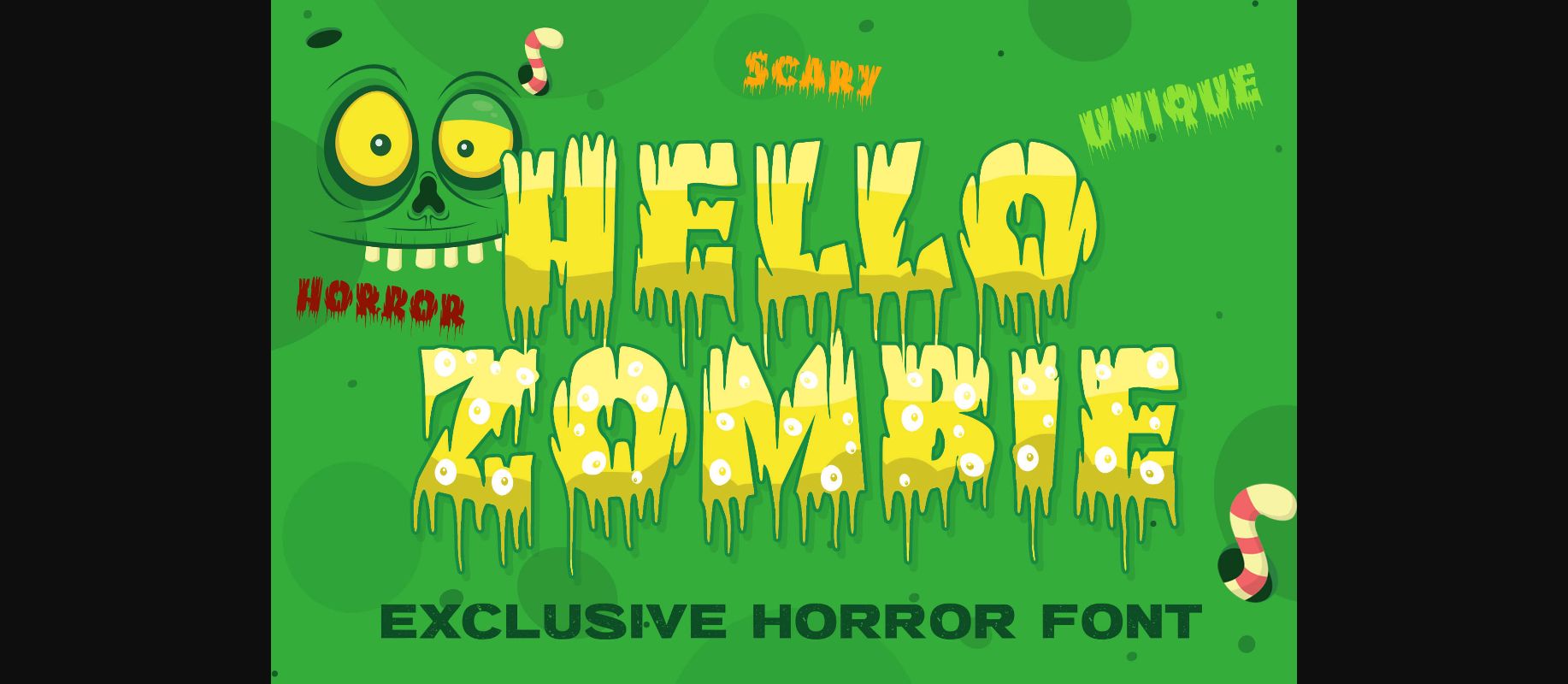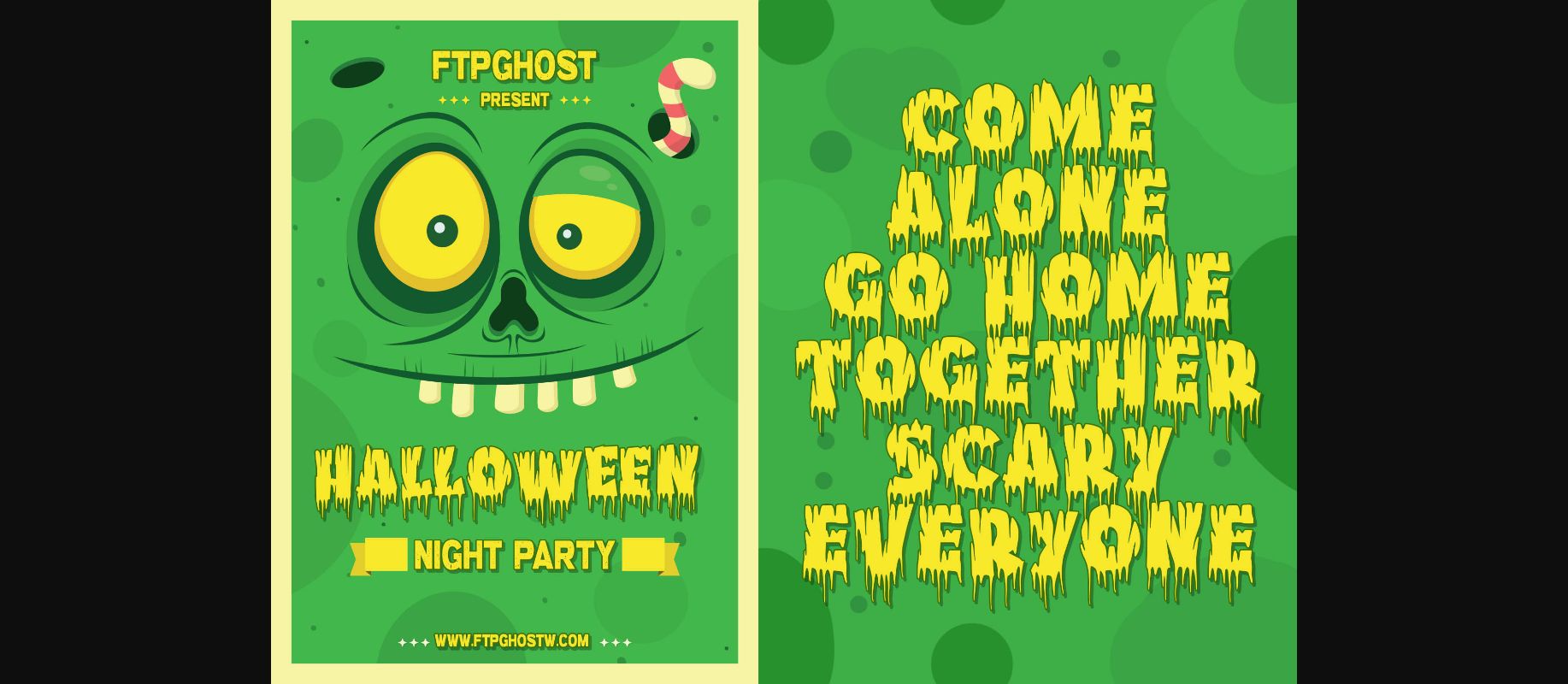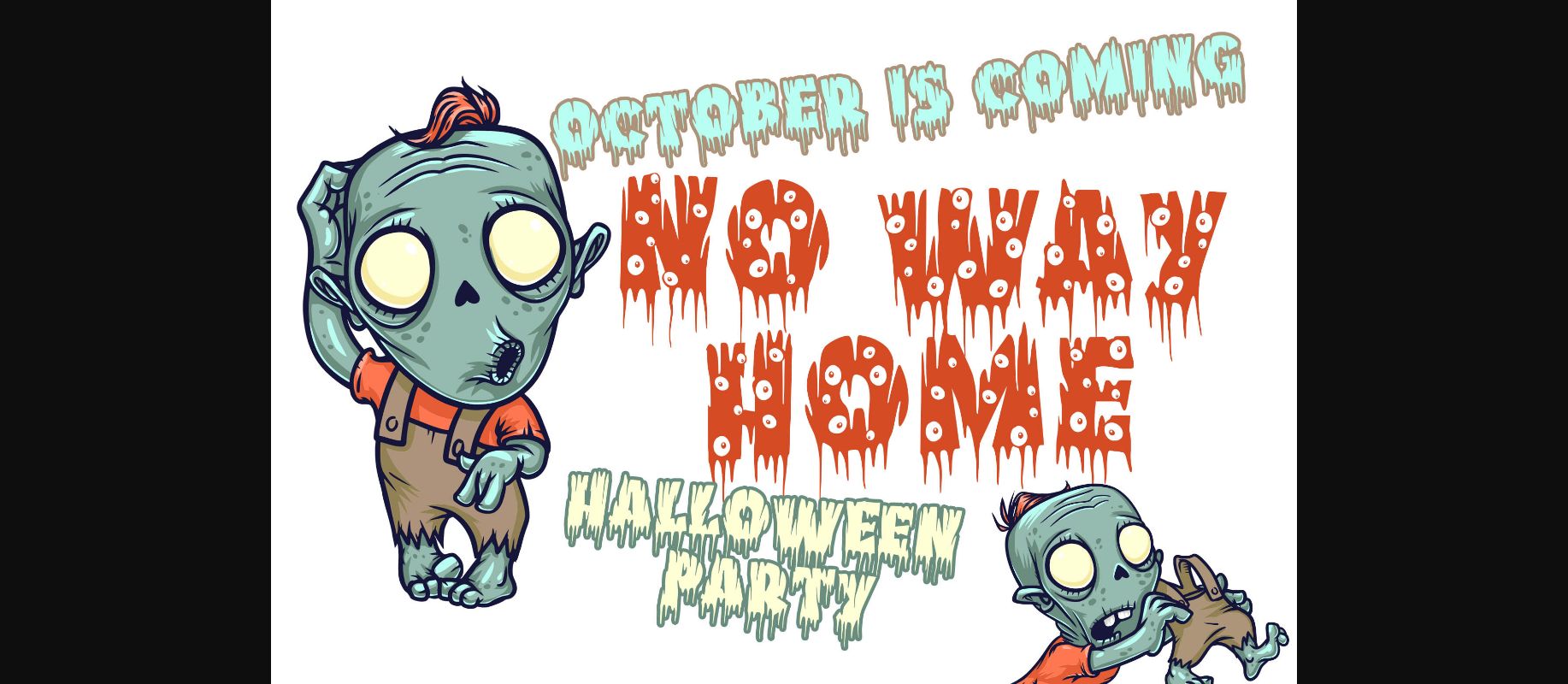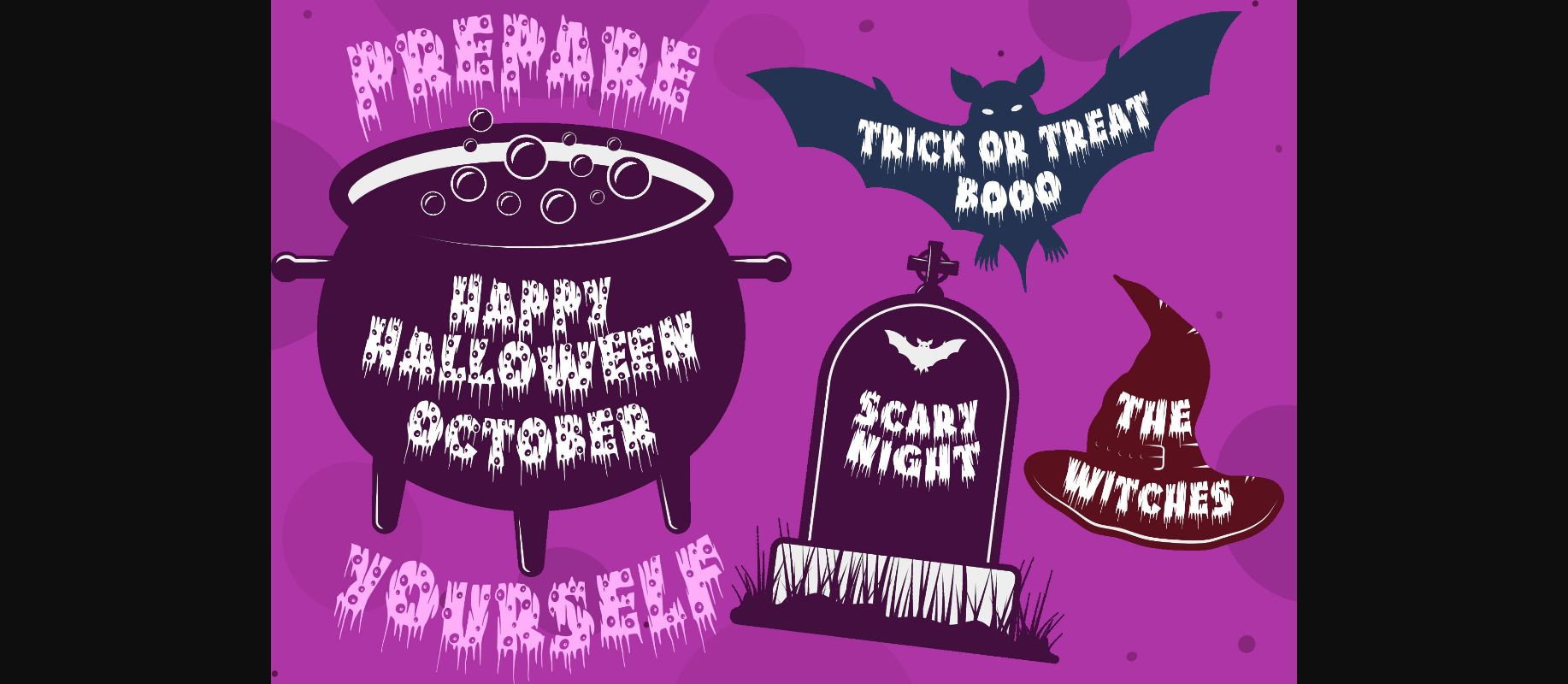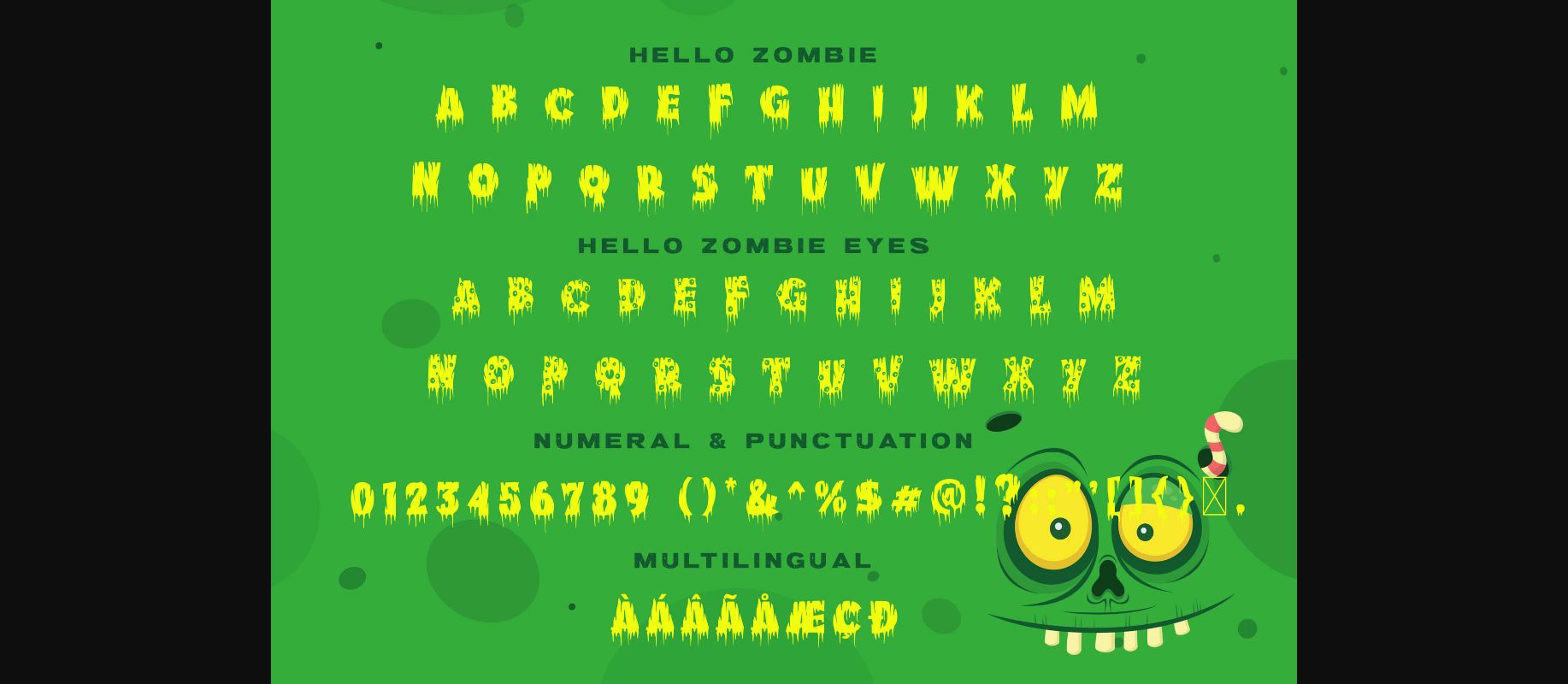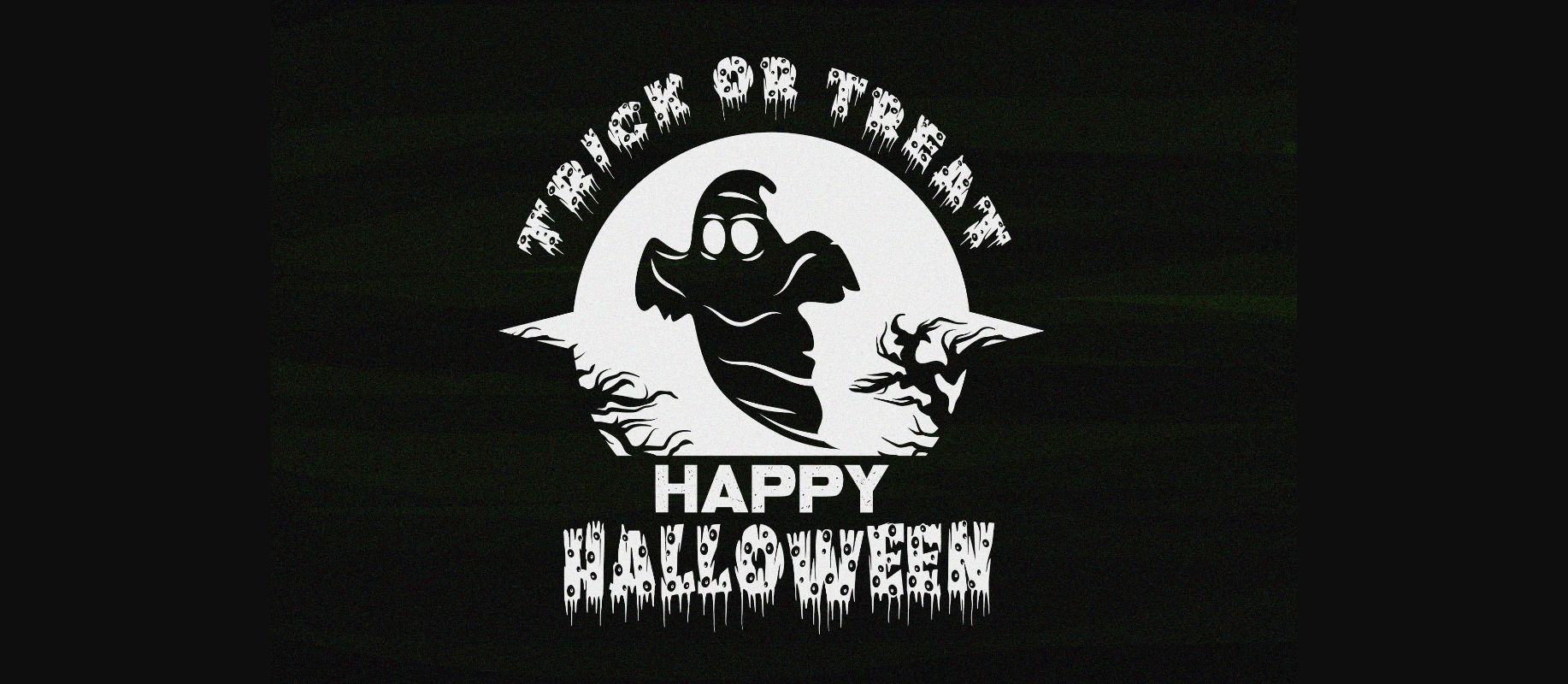
HomeDecorative FontsHello Zombie Font Decorative Fonts Hello Zombie Font FacebookXPinterestWhatsApp 1 of 8 ... Hello Zombie Font Poster 2... Hello Zombie Font Poster 3... Hello Zombie Font Poster 4... Hello Zombie Font Poster 5... Hello Zombie Font Poster 6... Hello Zombie Font Poster 7... Hello Zombie Font Poster 8... About Hello Zombie Font Hello Zombie is a cool and spooky decorative font. Add it to each of your Halloween or October designs and notice how they instantly stand out. DOWNLOAD NOW People also explored Blantone Script Font Kamathara Font Mardi Gras Brush Font Mading Font Jimmy Lofu Font Country Wedding Font Recomended Font The Shapes Font Chamberline Font 382 0 TagsHello Zombie Font Previous articleSpider Monogram FontNext articleJohn Bones Font LEAVE A REPLY Cancel reply Comment: Please enter your comment! Name:* Please enter your name here Email:* You have entered an incorrect email address! Please enter your email address here Website: Save my name, email, and website in this browser for the next time I comment. Personal Use Free Metal Lord Personal Use Free Read more about this font Fakedes Personal Use Free Read more about this font Makeba Font Personal Use Free Read more about this font Mellgatha Personal Use Free Read more about this font BLOG Best Fonts for YouTube Videos: Make Your Thumbnails Stand Out Best Fonts for YouTube Videos: Make Your Thumbnails Stand Out Choosing the right font can make a massive difference in how your YouTube videos perform.... Transform Your Website: Elevate Your Typography with 7 Best Web Font Generators Top 7 Google Fonts Alternatives for Faster and Privacy-Friendly Web Design (2025) Free Fonts Risk: Why Free Fonts Can Be Dangerous for Designers